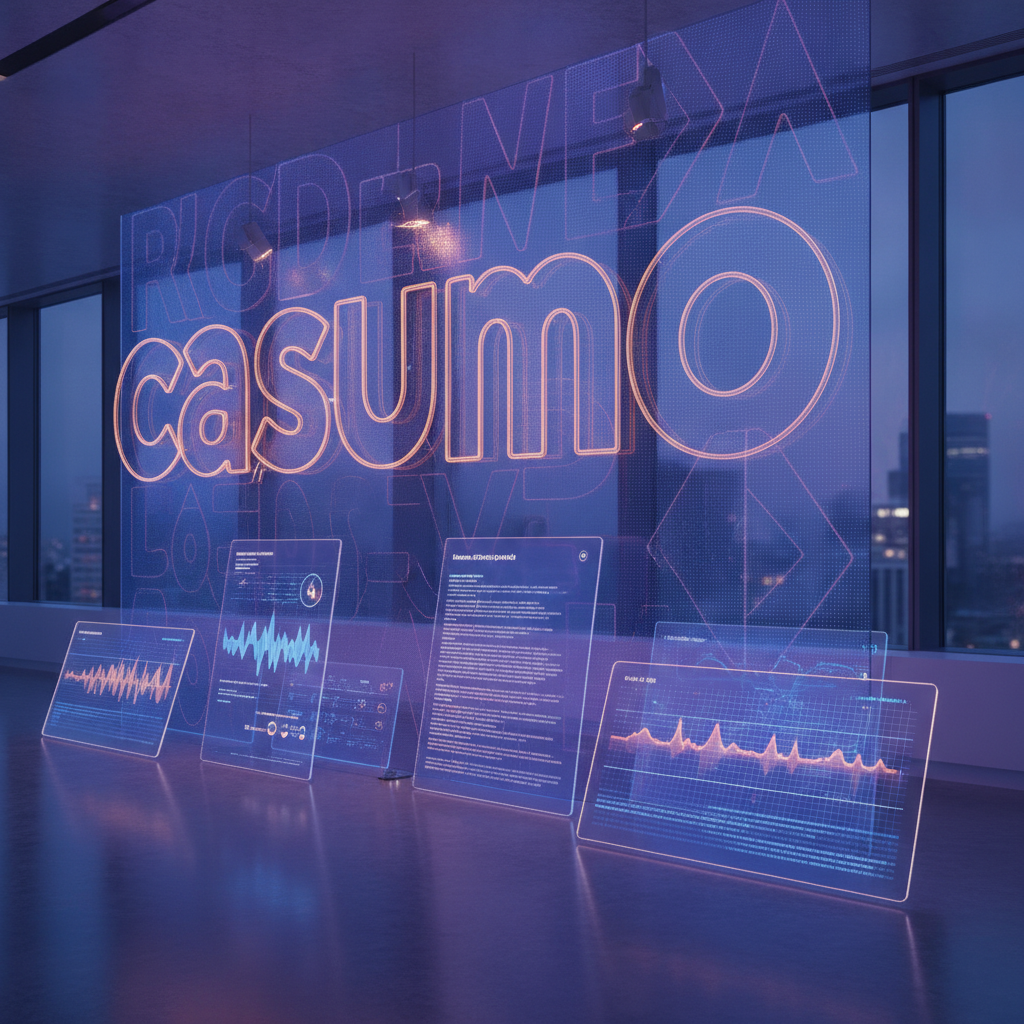
Casumo: Typography and Digital Readability in Brand Identity
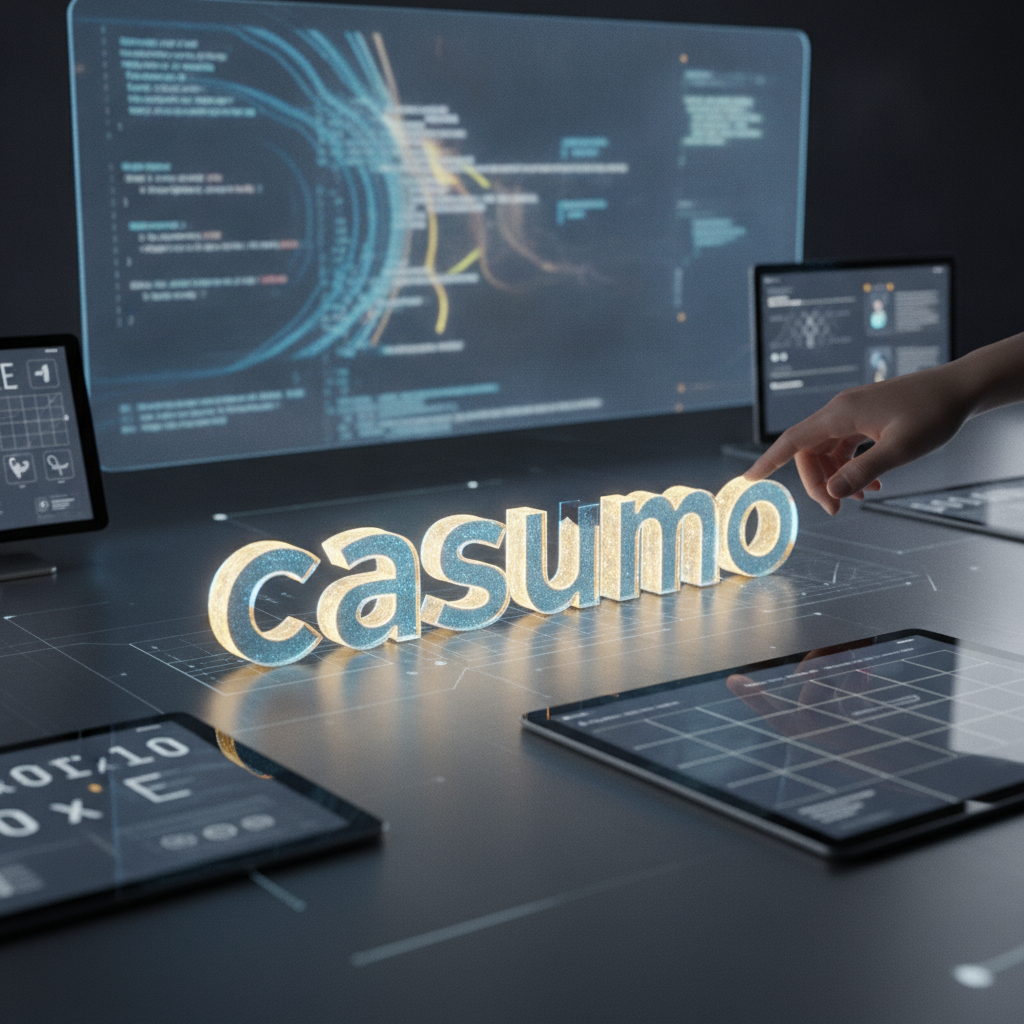
Introduction to Casumo
In an era where online gaming has become a significant part of entertainment, Casumo stands out as a pioneer. Launched in 2012, Casumo has revolutionized the online casino experience with its unique approach to player engagement, gamification, and a vibrant brand identity. This case study delves into how Casumo has utilized typographic brand identity and digital readability to enhance user experience, improve brand recognition, and foster community among players.
The Role of Typography in Brand Identity
Typography plays an essential role in establishing a brand's identity. It is more than just choosing a font; it encompasses the entire visual language that a brand communicates. For Casumo, the choice of typography is a critical component of its playful and adventurous brand persona. The brand employs a combination of custom typefaces and carefully selected fonts that align with their vision of creating a fun and immersive gaming environment.
1. Custom TypographyCasumo’s decision to use custom fonts contributes significantly to its unique brand image. By designing their own typeface, the company ensures that its visual representation is distinct from competitors. The playful nature of the typography resonates with the brand’s theme of exploration and discovery, making it instantly recognizable to users. This customized approach not only enhances aesthetic appeal but also fosters a sense of loyalty among players who associate these fonts with fun and entertainment.
2. Readability and User ExperienceWhile aesthetic considerations are important, readability is paramount in digital environments. Casumo has invested in creating a typography system that prioritizes clarity and legibility. This is especially crucial in online gaming, where players need to easily navigate through various sections, read instructions, and understand game mechanics without strain.
The use of ample line spacing, contrasting colors, and clear hierarchies in text ensures that users can quickly grasp information. For instance, headings are bold and prominent, subheadings are distinct yet less aggressive, and body text maintains a comfortable reading size. This attention to detail in typography is vital in creating an engaging user experience that encourages players to explore more games and features.
Color and Typography: A Cohesive Visual Identity
Color plays a crucial role in conjunction with typography to establish brand identity. Casumo employs a vibrant color palette that complements its typographic choices. The colors used are not only eye-catching but also align with the emotional responses the brand aims to evoke.
1. The Impact of Color PsychologyColors can evoke specific emotions and behaviors. Casumo's choice of bright, playful colors enhances the feelings of excitement and joy, reflecting the thrill associated with gaming. When these colors intertwine with their typography, a cohesive visual identity emerges. For instance, using a bright yellow for headings paired with a soft, legible font creates an inviting atmosphere that encourages users to participate.
2. Consistency Across PlatformsIn today's multi-device world, consistency in typography and color usage across all platforms is essential for brand recognition. Casumo ensures that the same typographic and color principles are adhered to whether users are accessing their mobile app, desktop site, or social media channels. This consistency helps reinforce the brand identity and makes it easier for players to recognize Casumo wherever they encounter it.
Digital Readability: A User-Centric Approach
The concept of digital readability goes beyond just the technical aspects of typography. It also encompasses how effectively users can consume content on various devices. Casumo's website and application have been designed with this in mind.
1. Responsive DesignCasumo’s commitment to digital readability is evident in its responsive design. The typography adjusts fluidly to different screen sizes, ensuring that text remains legible whether viewed on a smartphone, tablet, or desktop. This adaptability is crucial as more players engage with online casinos via mobile devices.
2. Testing and IterationTo maintain high standards of readability, Casumo engages in continuous testing and iteration of their typography choices. A/B testing different font sizes, styles, and layouts allows the brand to gather valuable feedback from users. This data-driven approach ensures that the typography is always optimized for user experience, reflecting a commitment to player satisfaction.
Case Studies in Successful Typography Implementation
Several notable examples highlight Casumo's effective use of typography in its branding strategy. From promotional emails to in-game interfaces, the consistency of typographic choices fosters a seamless brand experience.
1. Promotional MaterialsCasumo’s promotional emails often showcase their unique typography, combined with engaging visuals. The use of playful fonts in headlines captures the reader's attention, while clear and concise body text provides essential information without overwhelming the recipient. This balance of style and clarity helps drive conversions and keeps players informed about new games and promotions.
As online gaming continues to evolve, the principles established by Casumo serve as a benchmark for others. Brands that prioritize typography and readability not only create visually appealing interfaces but also foster deeper connections with their users. In the case of Casumo, the journey is far from over, and their commitment to innovation in typography and design will undoubtedly shape the future of digital gaming.